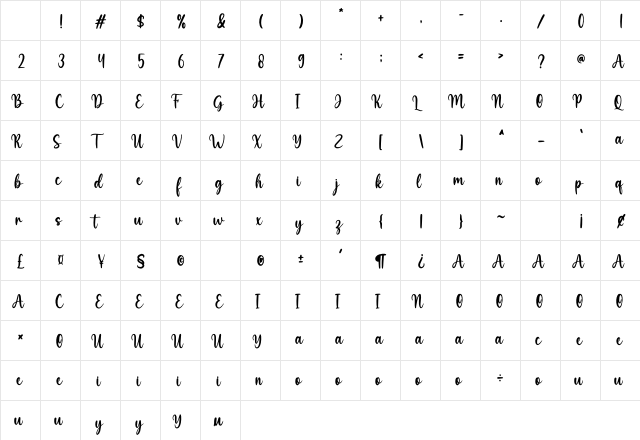
Complete Hello Autumn Regular glyph index. Displaying only characters natively supported by Hello Autumn Regular font.
Hello Autumn is a composed and adaptable typeface that performs quietly and consistently across a wide range of design contexts.